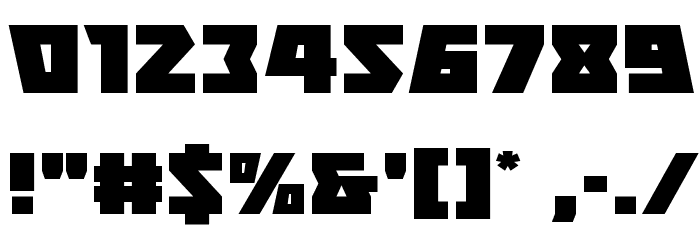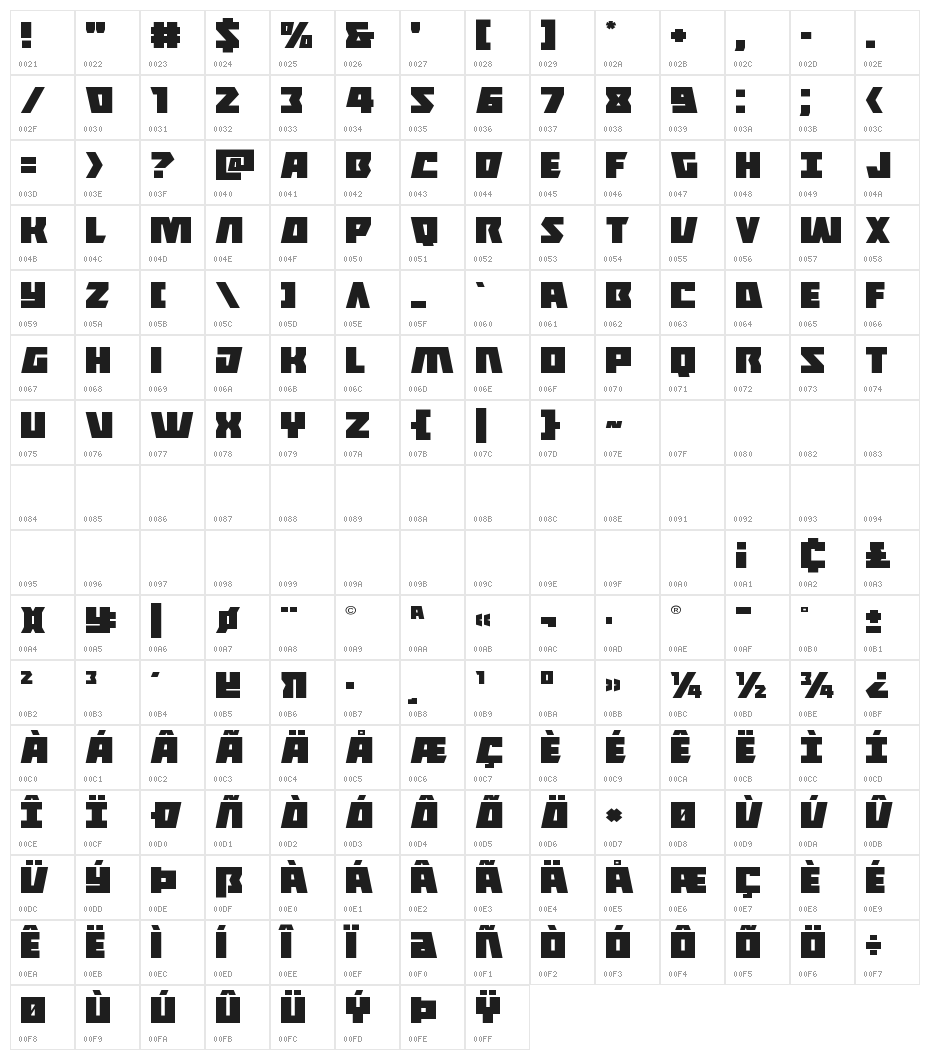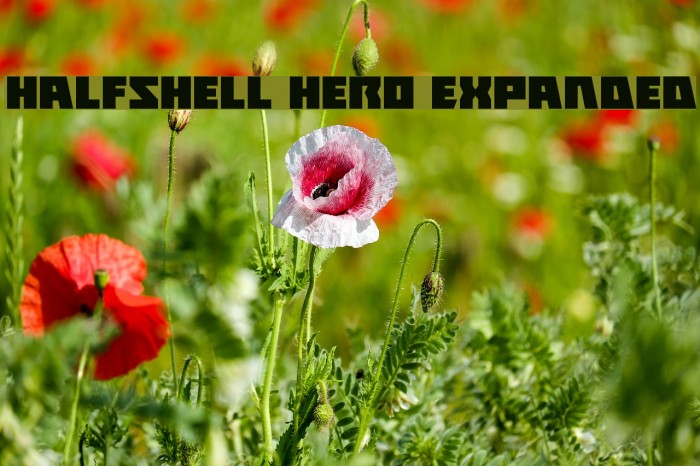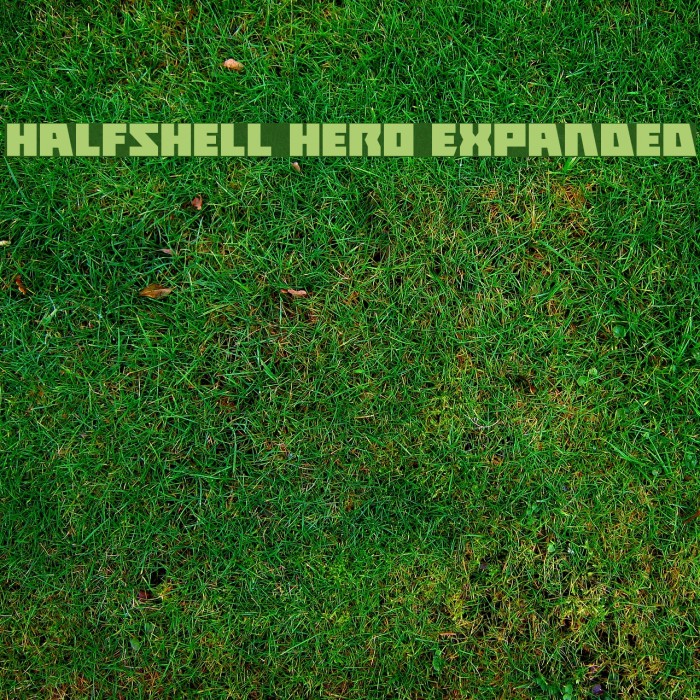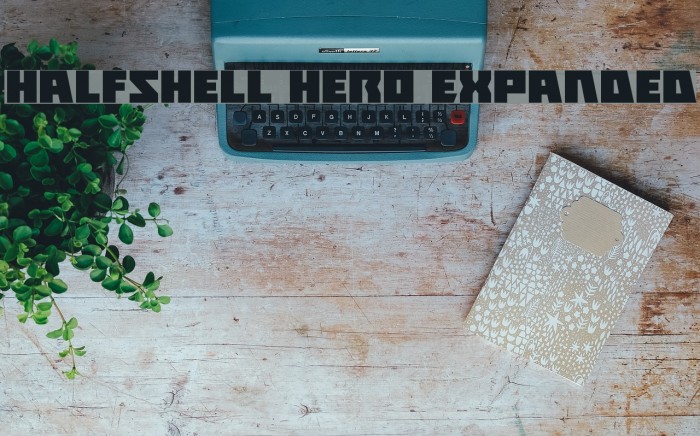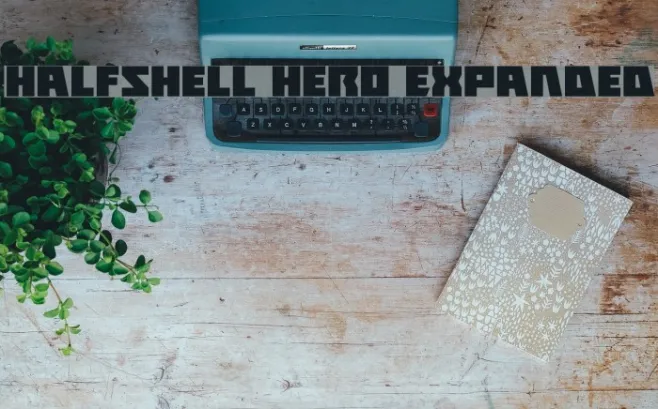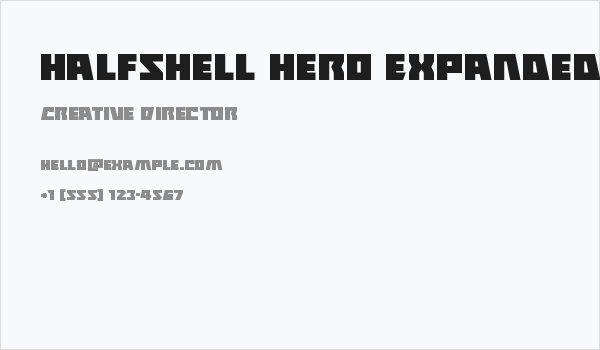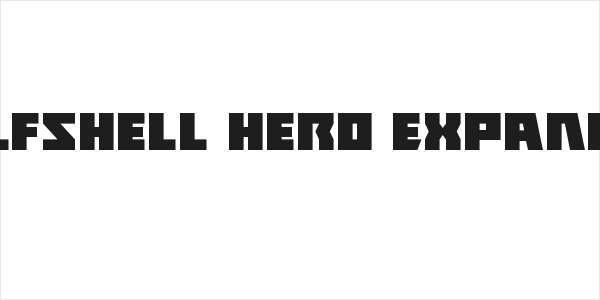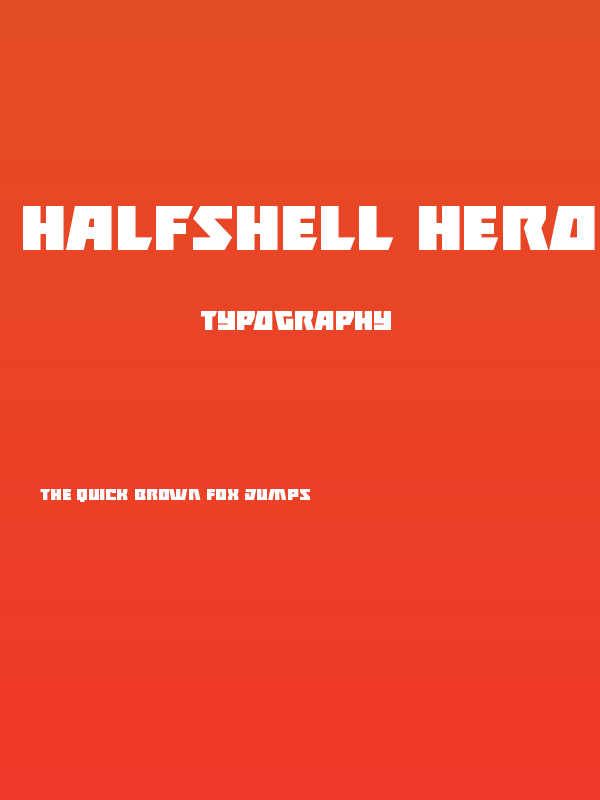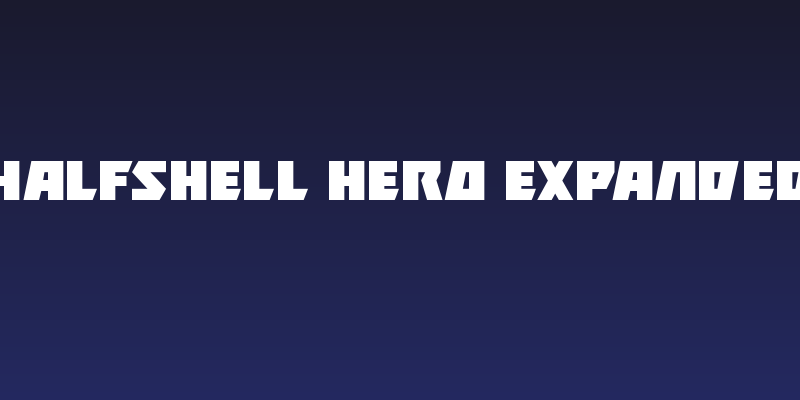
Halfshell Hero Expanded Font
Halfshell Hero Expanded Description
This font features a bold, geometric style with sharp angles and a strong presence. The characters are blocky and robust, giving a sense of strength and stability. The uppercase and lowercase letters maintain a consistent weight, contributing to a uniform appearance. The numbers and special characters follow the same design principles, ensuring cohesion across all elements. This font's expanded width and tight character spacing make it ideal for impactful headlines and titles. Its unique style is reminiscent of retro or futuristic themes, making it suitable for creative and eye-catching designs.
| Overall Style | Futuristic, Retro |
| Proposed Projects | This font is perfect for projects that require a strong visual impact, such as posters, logos, video game graphics, and branding materials. |